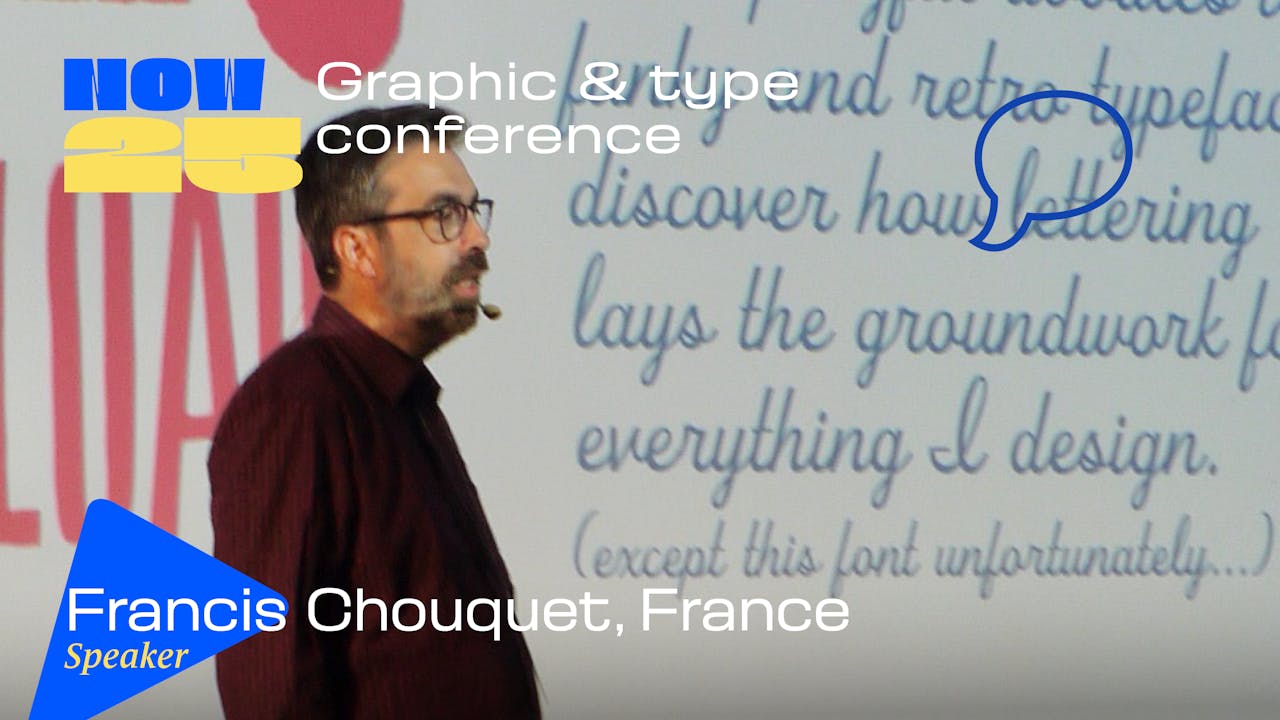
Now25 Talk Francis Chouquet
Francis Chouquet
Topic: From doodles to downloads: Where lettering meets fonts
In this talk, I will take you behind the scenes of my creative process, where hand-drawn letters evolve into functional fonts. From playful doodles to funky typefaces, discover how Lettering lays the groundwork for everything I design.